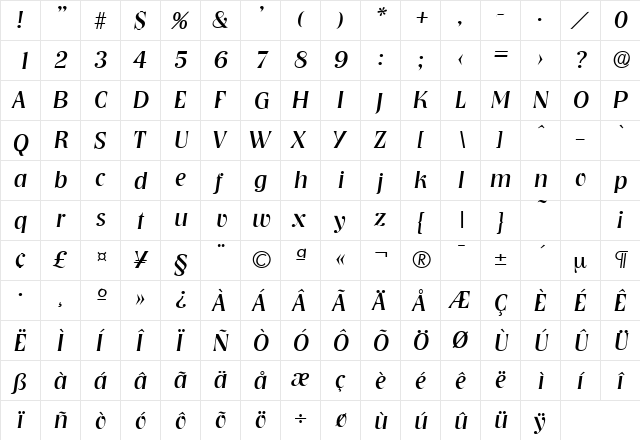
Nashville-Serial DB RegularItalic
Design Context for Nashville-Serial DB Typeface
Nashville-Serial DB offers clean, dependable letterforms without strong stylistic allegiance, making it a practical choice for designers who need flexibility. The slanted form adds forward momentum and visual energy.
Pro Tip: Try Nashville-Serial DB for annotation and caption copy alongside an upright companion — the contrast in angle creates a dynamic but ordered typographic system.